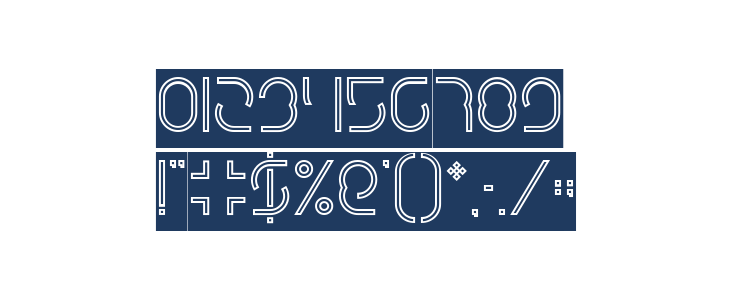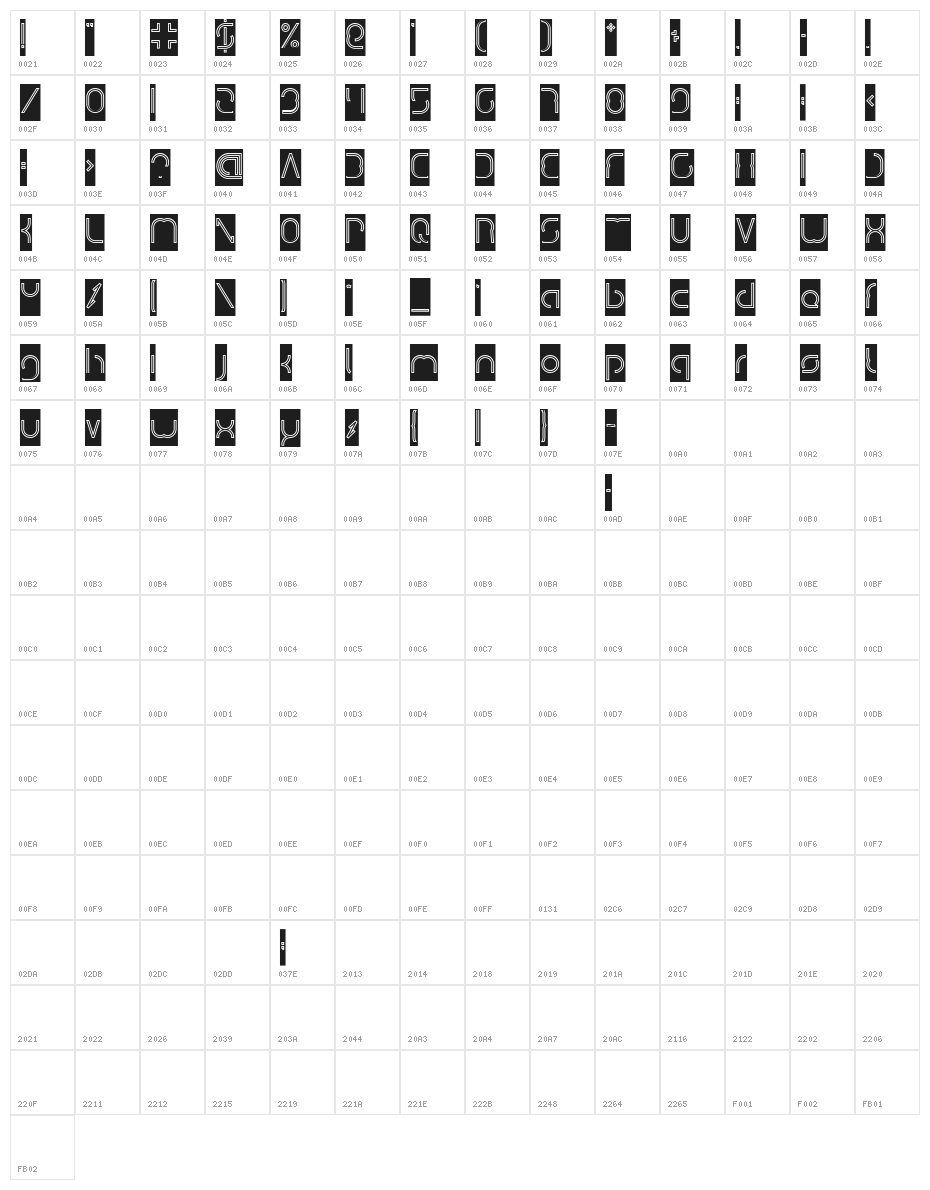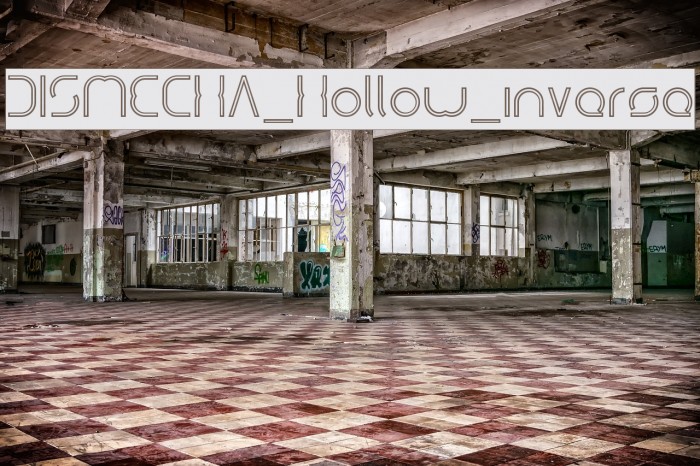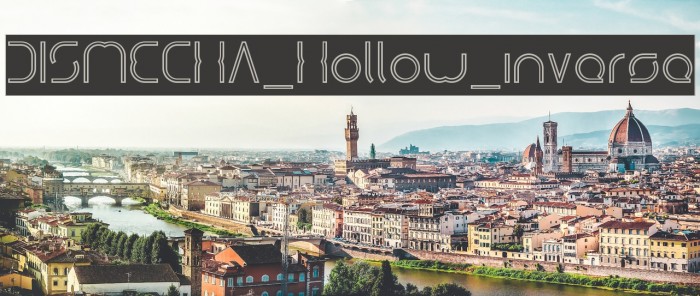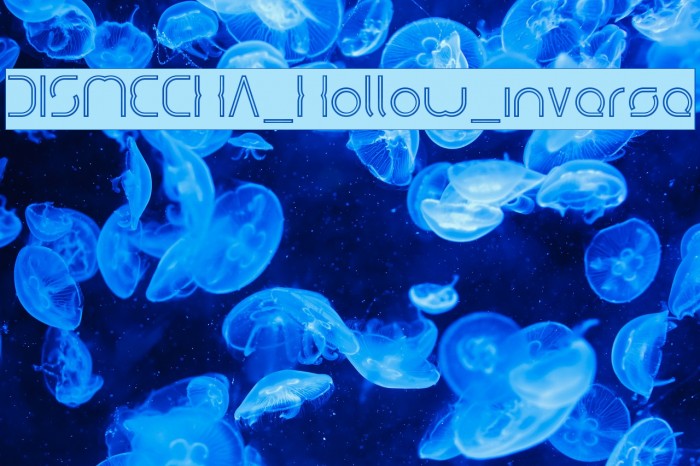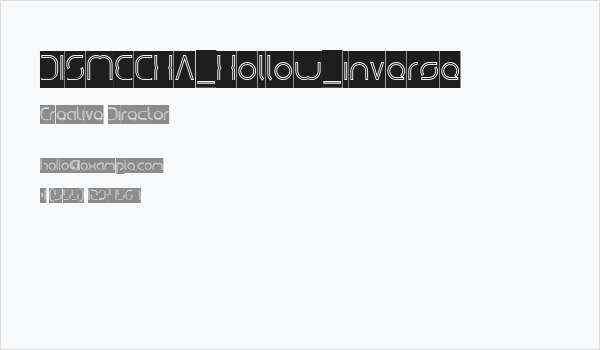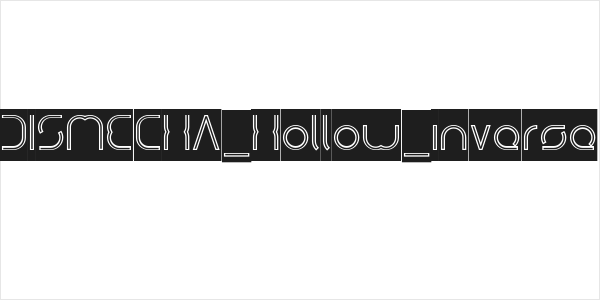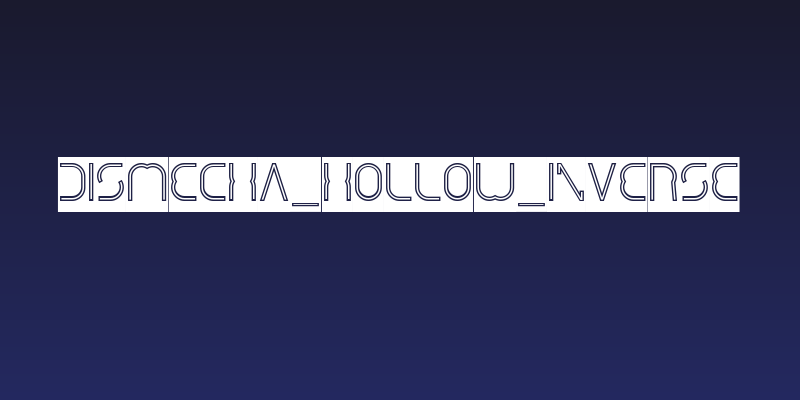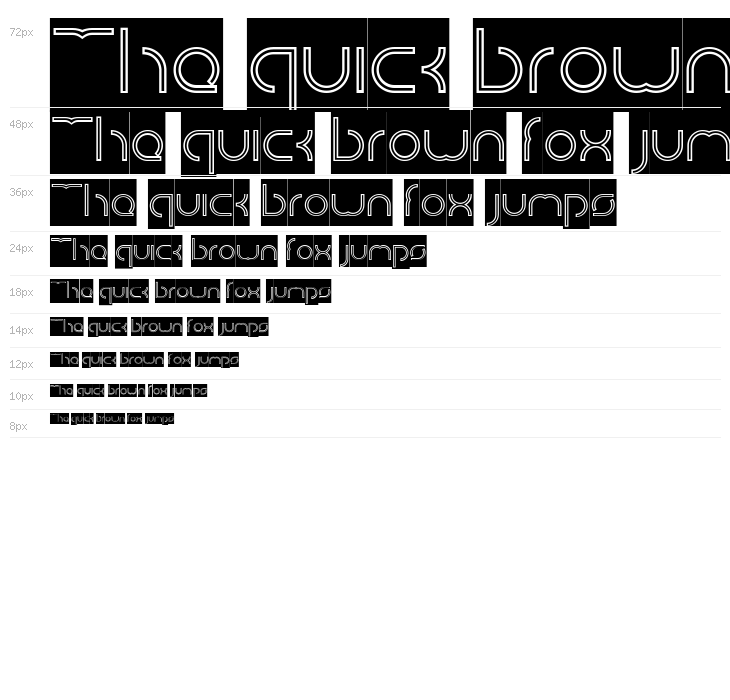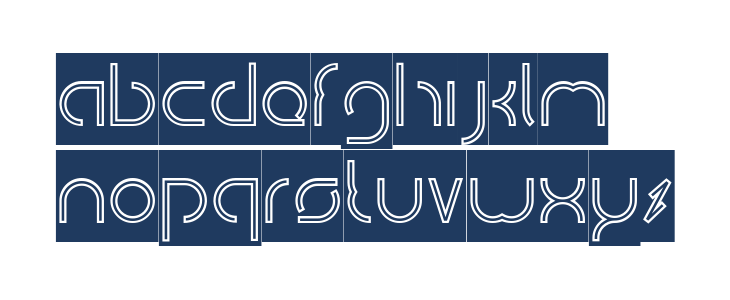
DISMECHA_Hollow_inverse Font
DISMECHA_Hollow_inverse Description
This font features a futuristic and geometric design with hollow, outlined characters. The uppercase and lowercase letters maintain a consistent style, characterized by sharp angles and smooth curves, creating a sleek and modern appearance. The numerals and special characters follow the same design principles, ensuring uniformity across all glyphs. The font's hollow nature gives it a unique, airy feel, making it stand out in digital and print media. Its distinct style is suitable for projects that require a modern and technological aesthetic.
| Proposed Projects | Ideal for technology branding, sci-fi posters, digital artwork, and modern advertising. |